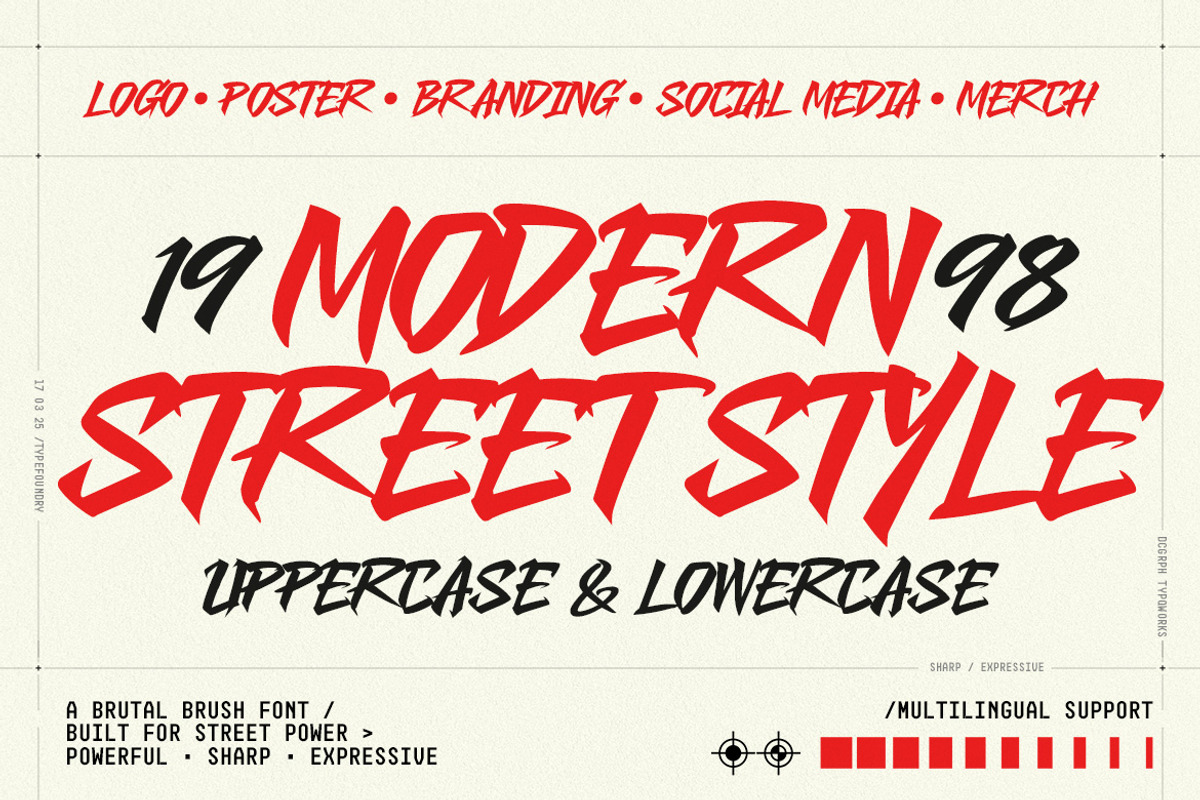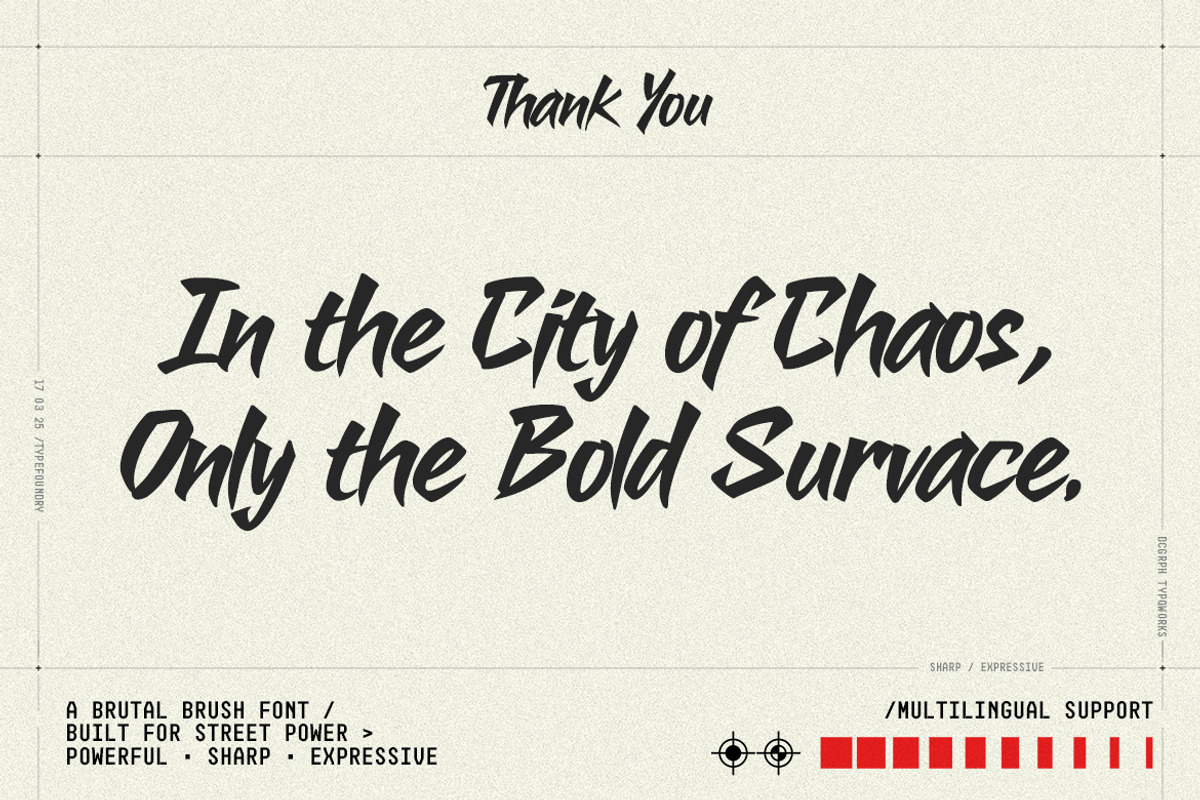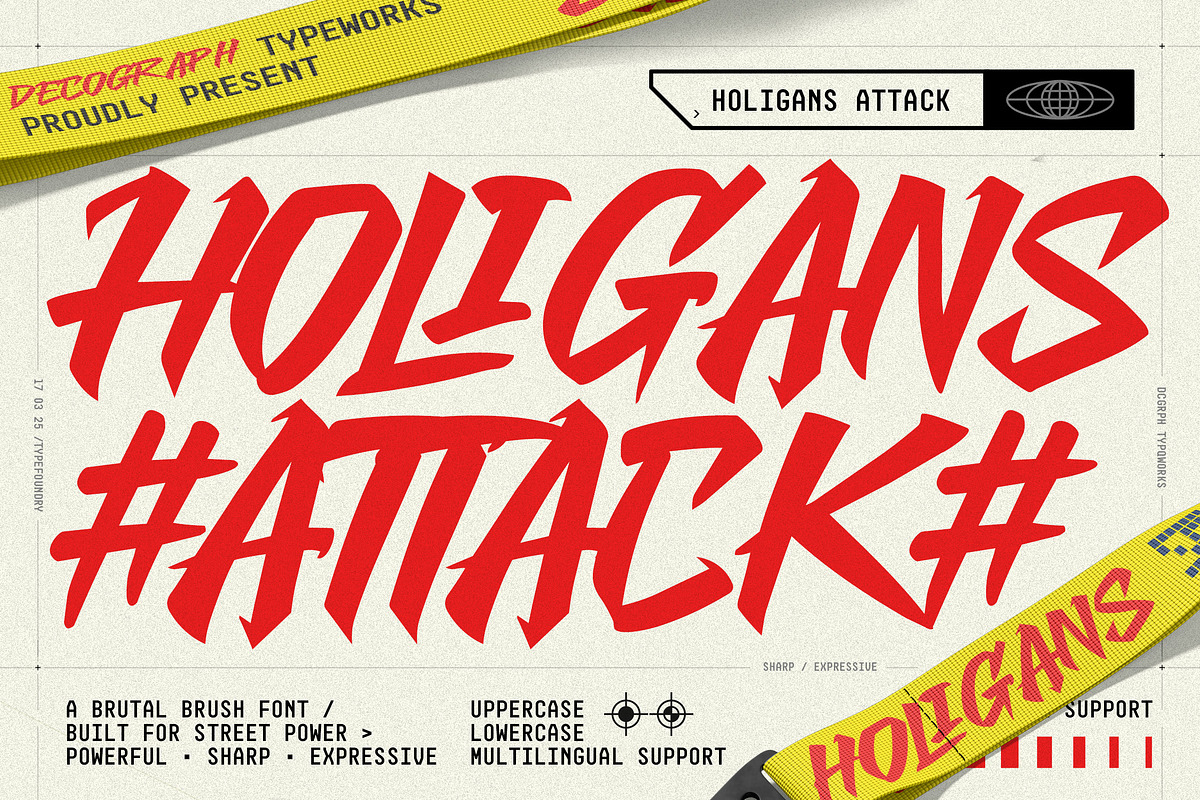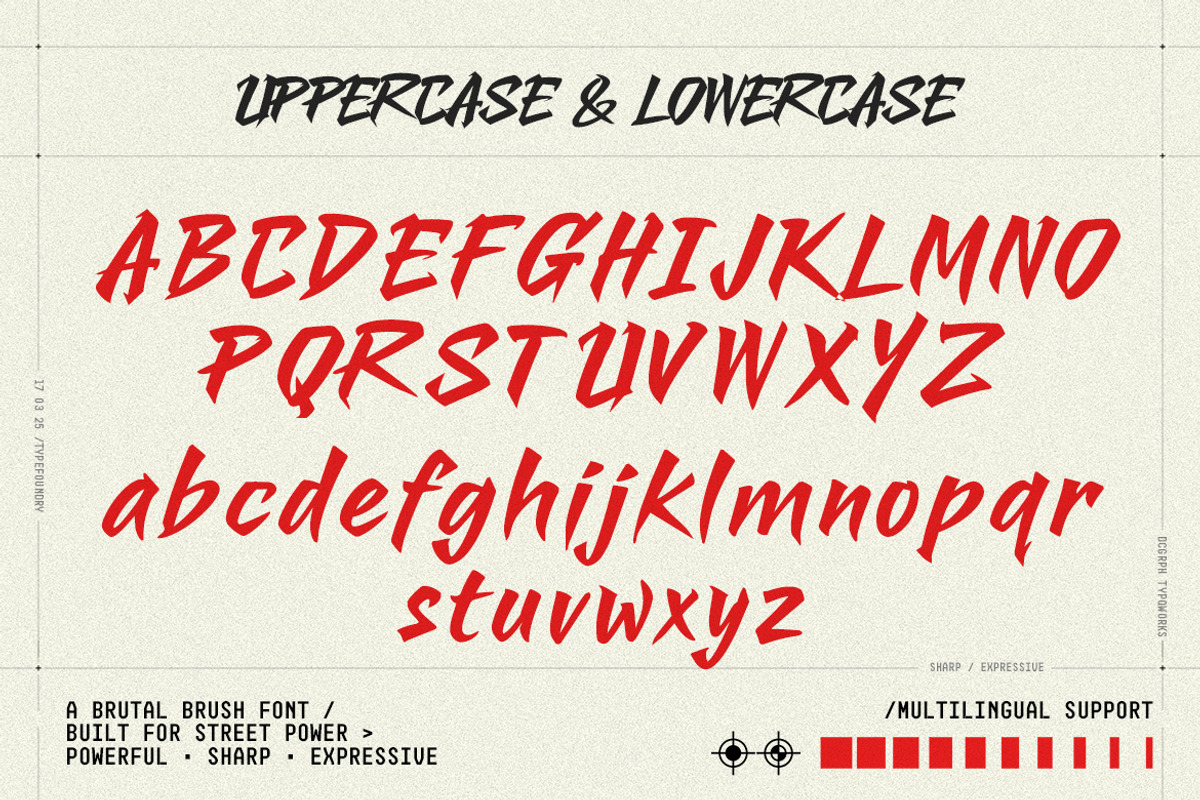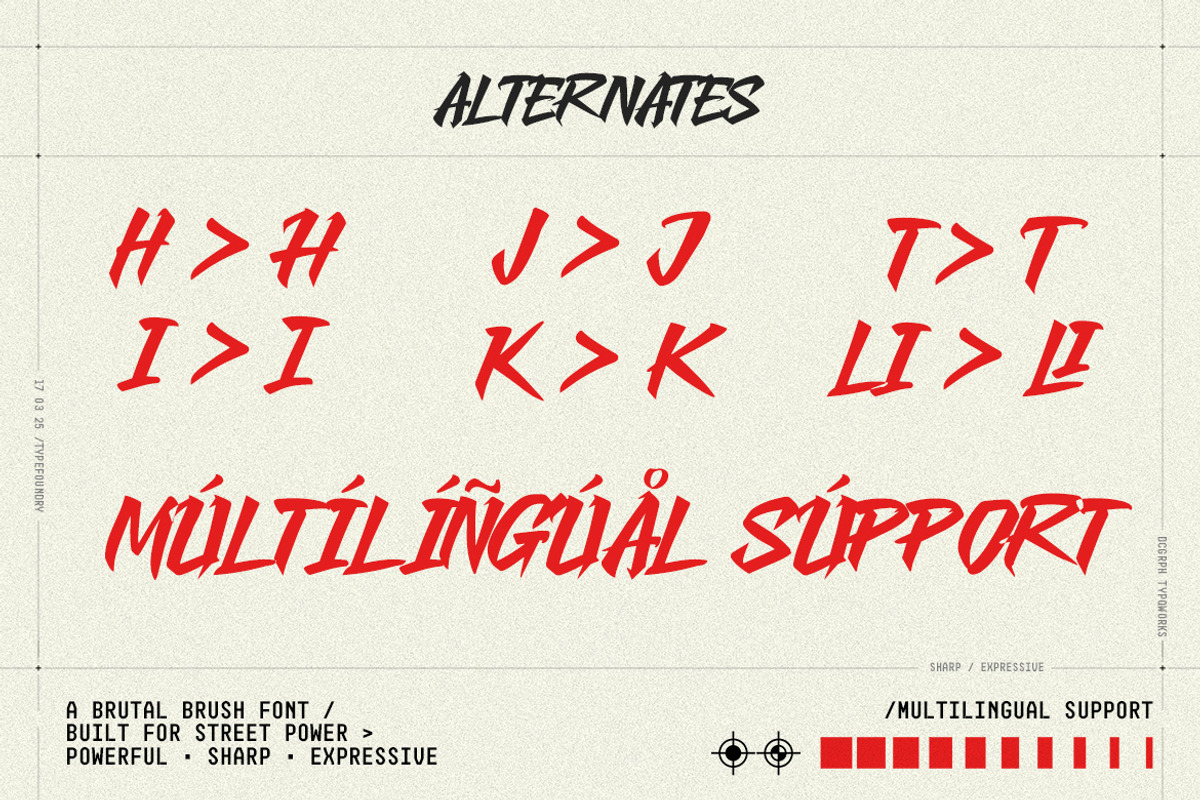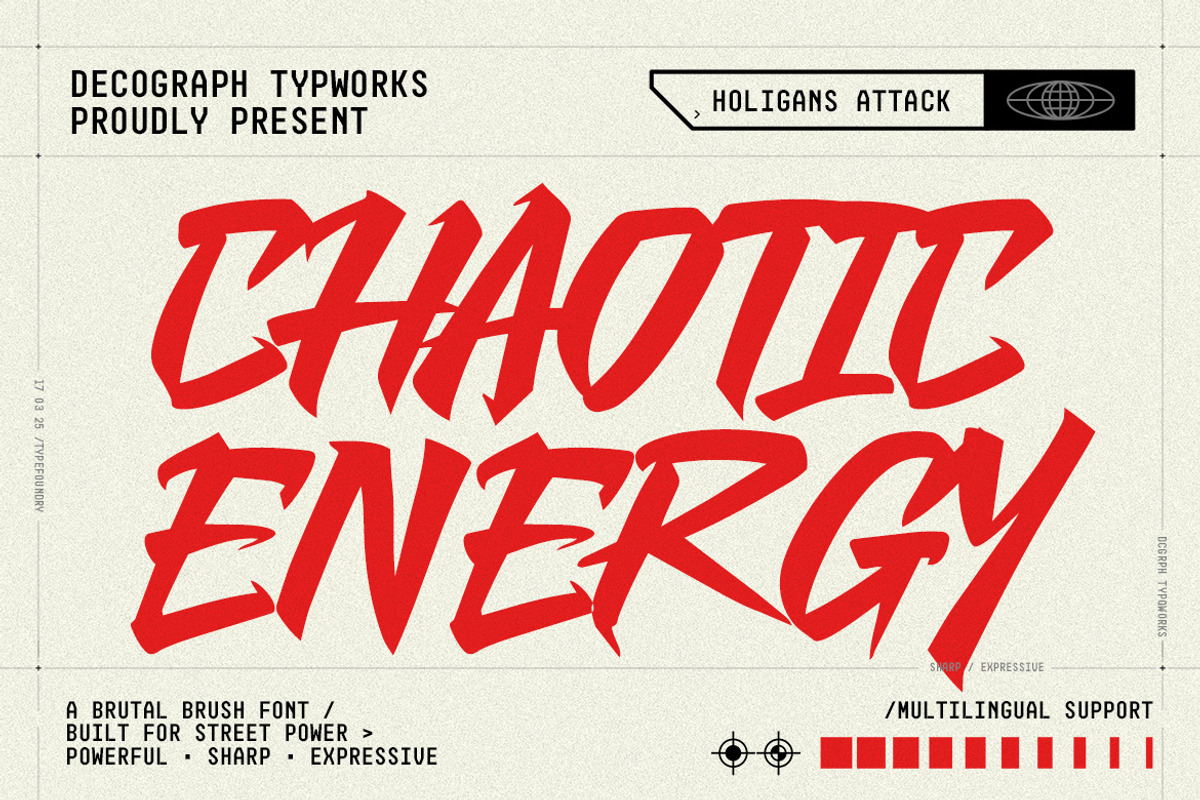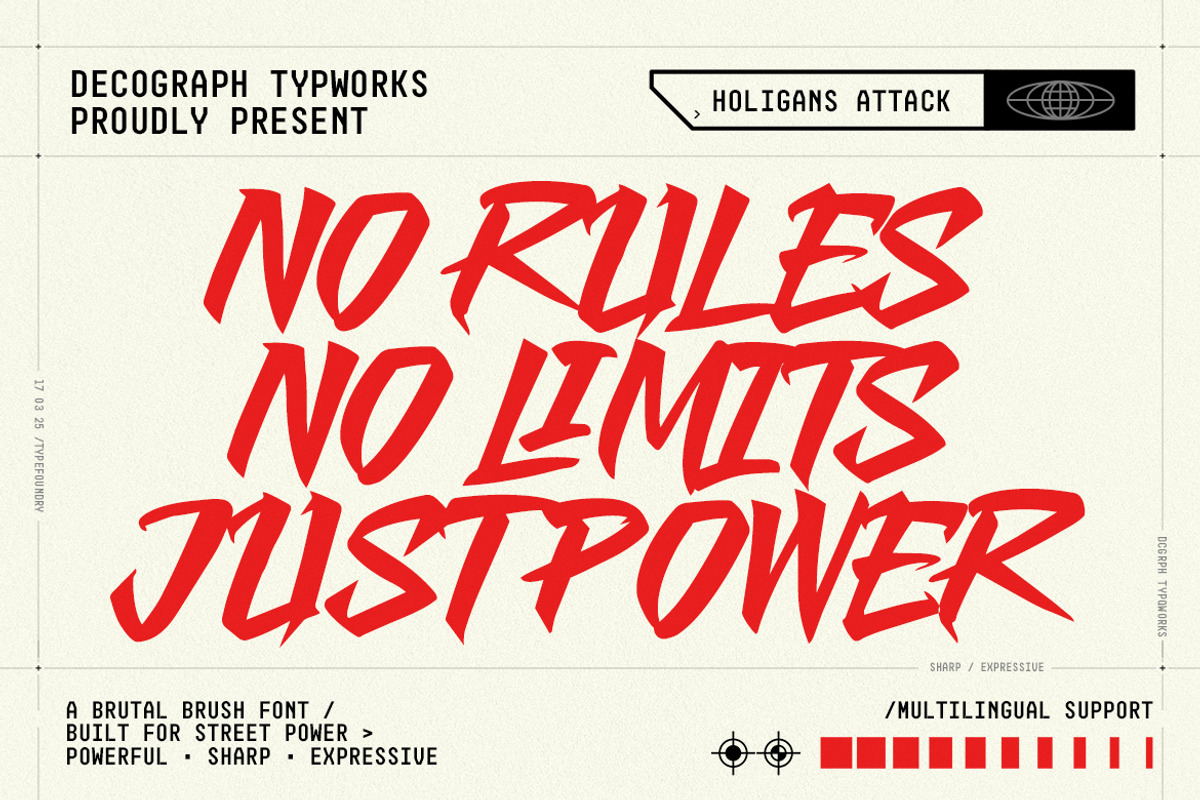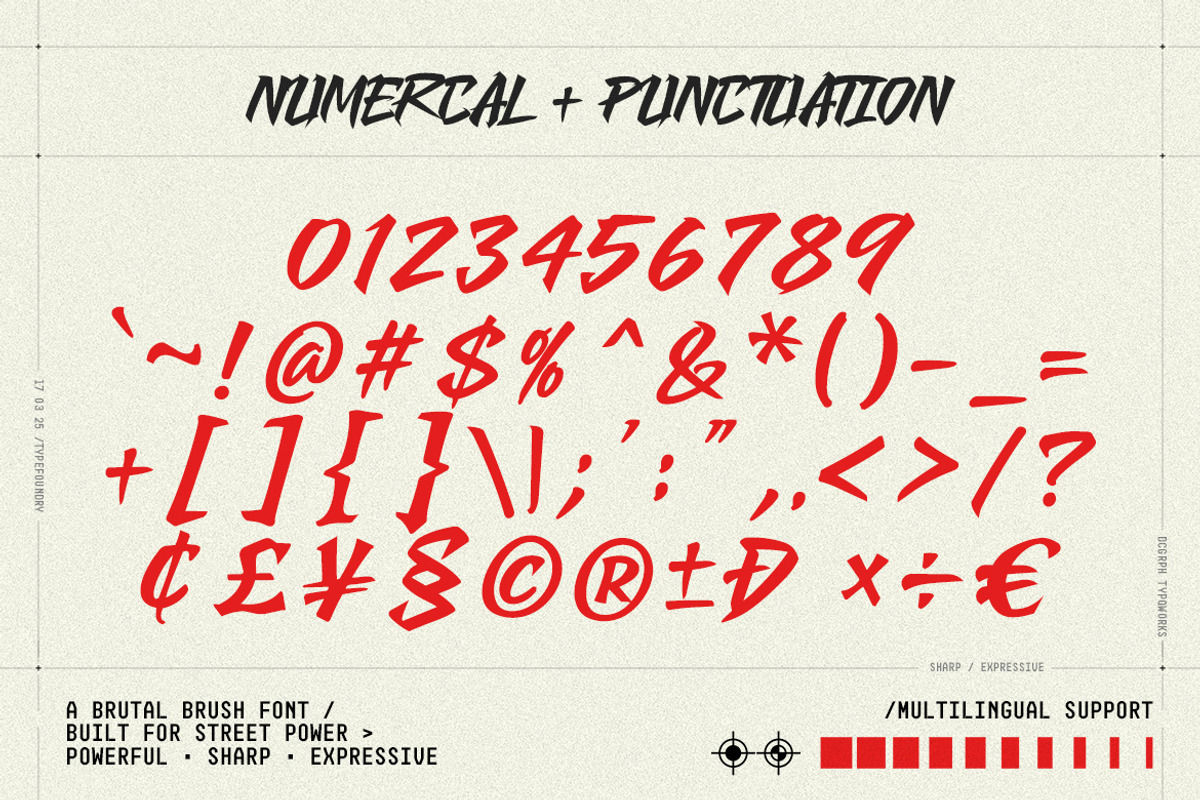
Holigans Attack – Street Font
Holigans Attack is a fierce brush display font built with sharp strokes, aggressive angles, and high-impact energy that embodies raw street power and expressive rebellion. Its jagged letterforms and fast, slashing motion create a sense of urgency and attitude, making it perfect for streetwear branding, music artwork, posters, sports visuals, and bold digital content that demands attention. Designed to be loud, fearless, and unapologetically strong, this font delivers a gritty urban aesthetic that cuts through the noise.